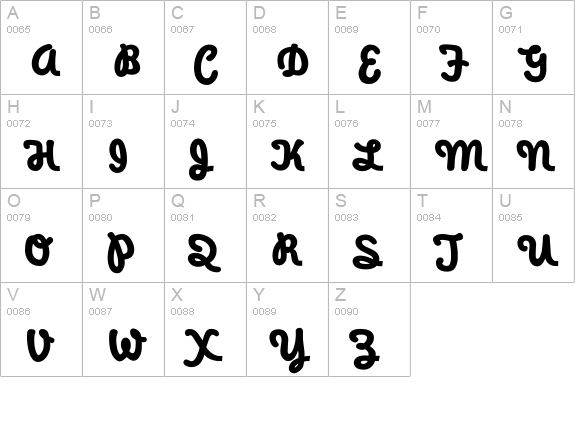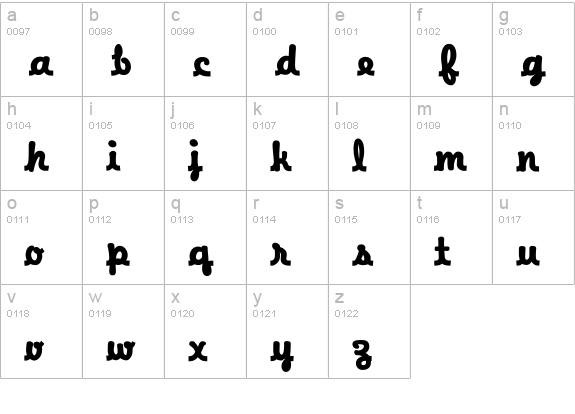
WaveeWeekend-Thick Font Details
Introducing WaveeWeekend-Thick, a stunningly bold and charismatic font that will leave a lasting impression on your designs. With its thick and prominent strokes, this font exudes confidence and power, making it perfect for attention-grabbing headlines, logos, and branding materials. What sets WaveeWeekend-Thick apart is its ability to effortlessly combine a sense of elegance with a touch of playfulness. It's versatile enough to be used in a variety of design projects, from fashion magazines to trendy posters and social media graphics. But here's the best part – WaveeWeekend-Thick is available for free! That's right, you can download this remarkable font without spending a dime. Simply head over to FontsMarket.com, where you can easily access and download WaveeWeekend-Thick to enhance your creative endeavors. Whether you're a professional designer or a creative enthusiast, WaveeWeekend-Thick will elevate your projects to new heights. Its striking appearance and unique character will captivate your audience, leaving a lasting impression that won't soon be forgotten. So why wait? Take advantage of this incredible opportunity to download WaveeWeekend-Thick for free at FontsMarket.com and unlock the potential of this visually stunning font. Let your creativity flow and watch as your designs come to life with the bold and captivating presence of WaveeWeekend-Thick.